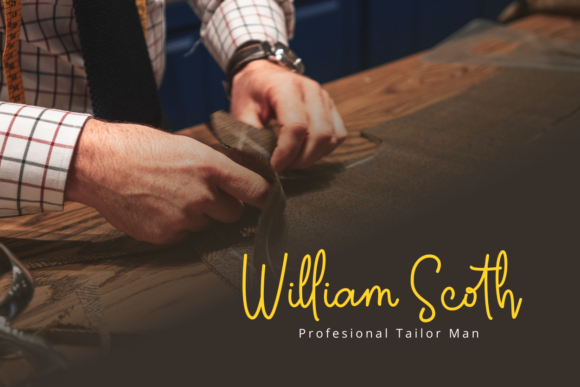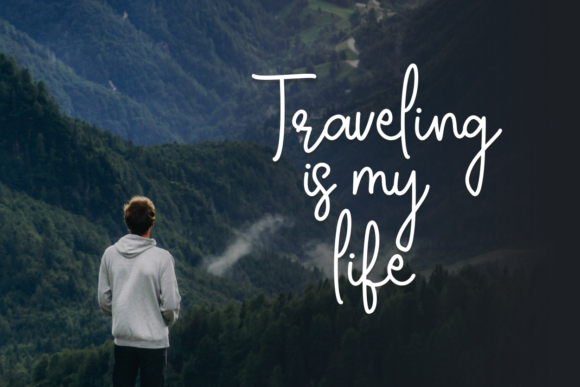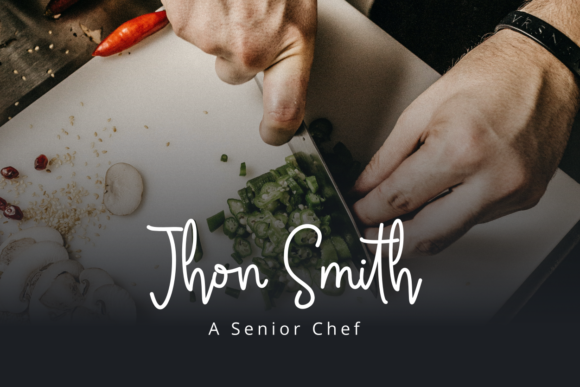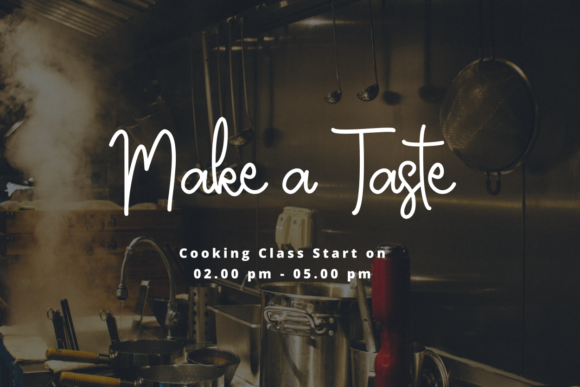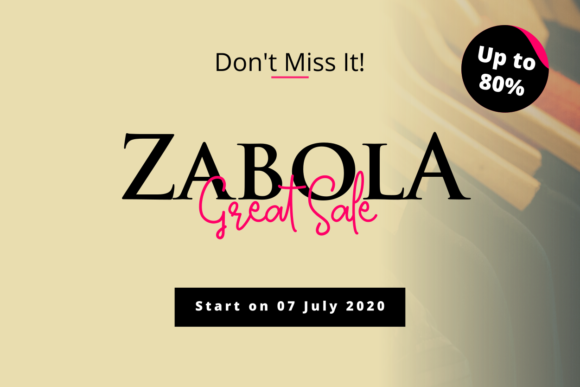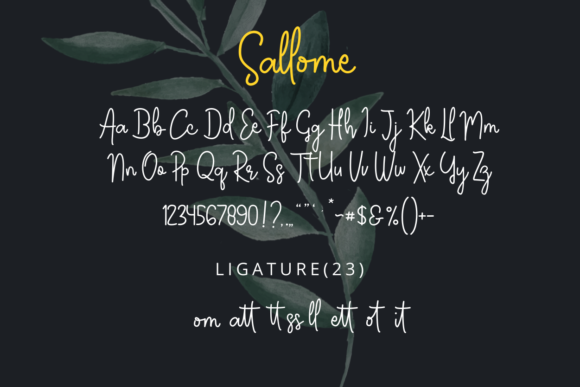
Introduction to Sallome Font Font
Fonts play a crucial role in design, and the Sallome Font font is a typeface that brings both character and versatility to any project. Whether you’re working on a branding project, a website, or a print design, the Sallome Font font offers a unique style that can elevate your work.
| π Font Name | Sallome Font |
| π€ Author | Rahagita Studio |
Sallome is a beautiful script with a natural handwritten style.
Its casual charm makes it appear wonderfully down-to-earth, readable and, ultimately, incredibly versatile Sallome will look outstanding in any context, whether itβs being used on busy backgrounds or as a standalone headline.
Key Features of Sallome Font Font
Why Choose Sallome Font Font?
The Sallome Font font is more than just a typeface β it’s a design tool that helps you communicate your message with style and clarity. Its unique character set and versatile design make it suitable for a wide range of applications, from elegant invitations to bold headlines.
With its carefully crafted letterforms and balanced proportions, the Sallome Font font ensures readability and visual appeal across all mediums.
What makes Sallome Font font special?
The Sallome Font font stands out with its unique design, exceptional readability, and versatility across various design applications.